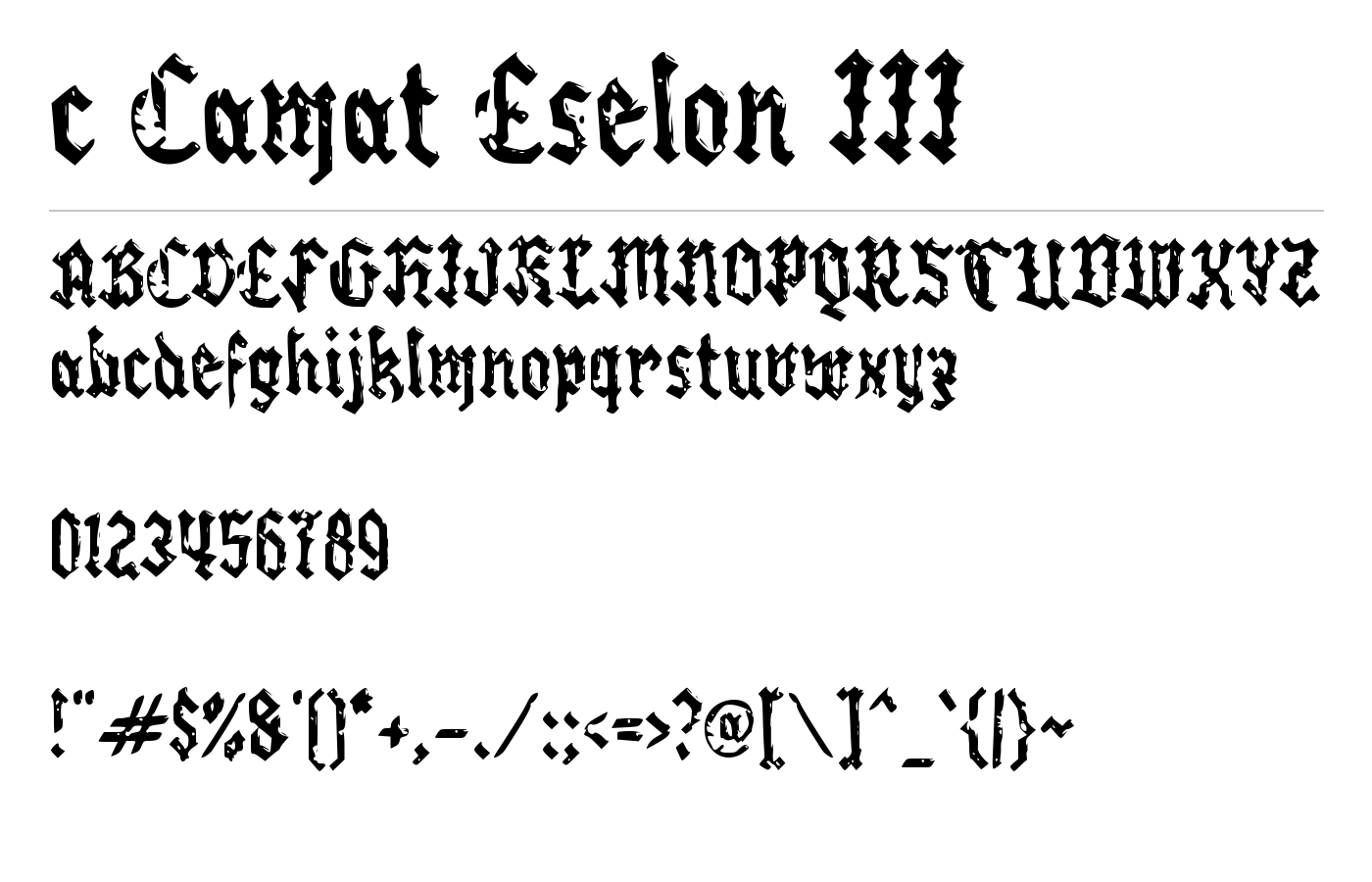
C Camat Eselon III is a bold blackletter typeface with intricate, sharp-edged strokes and high contrast between thick and thin lines that give it a traditional Gothic appearance. Its condensed letterforms and sharp serifs create a dense, dramatic feel, making it ideal for vintage-inspired designs, headlines, or branding that seeks an old-world, authoritative character. This font works best where a strong historical or medieval mood is desired, such as logos, posters, or editorial titles.
c Camat Eselon III Font
About c Camat Eselon III Font